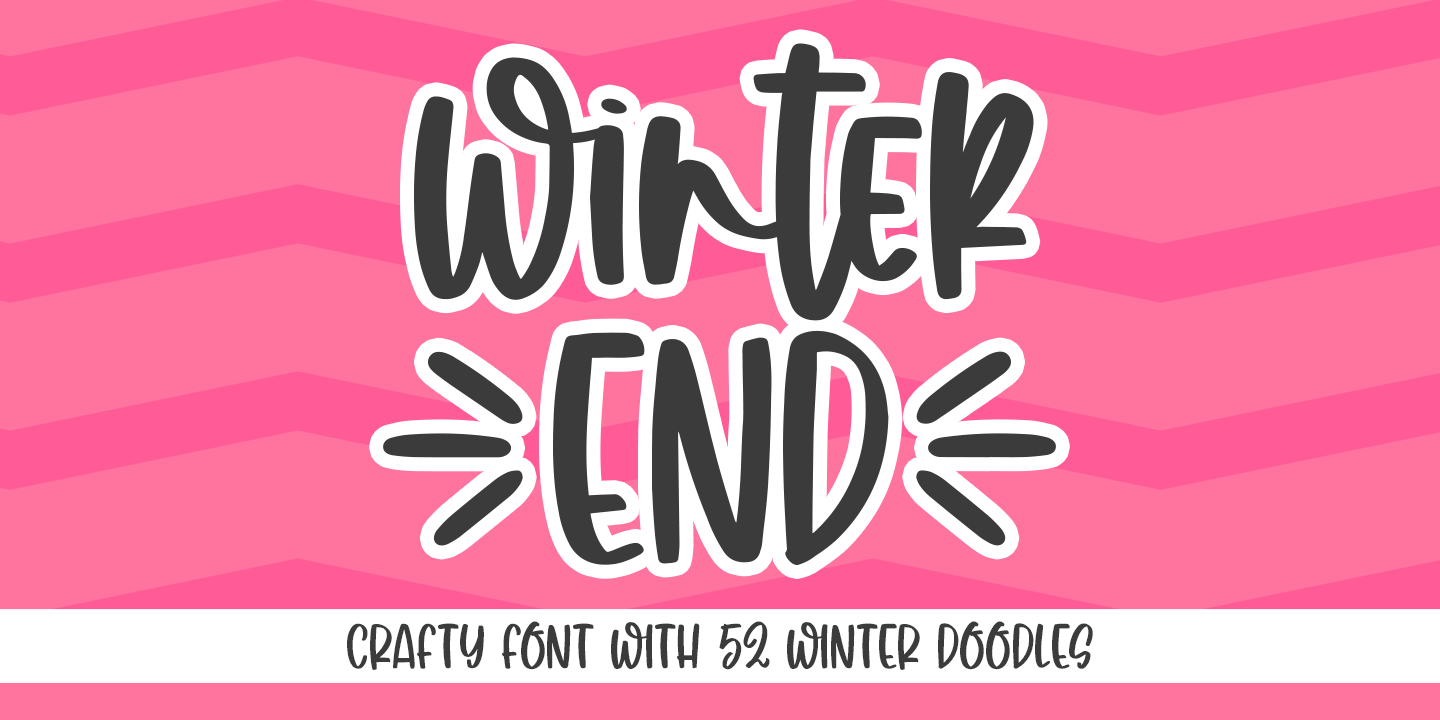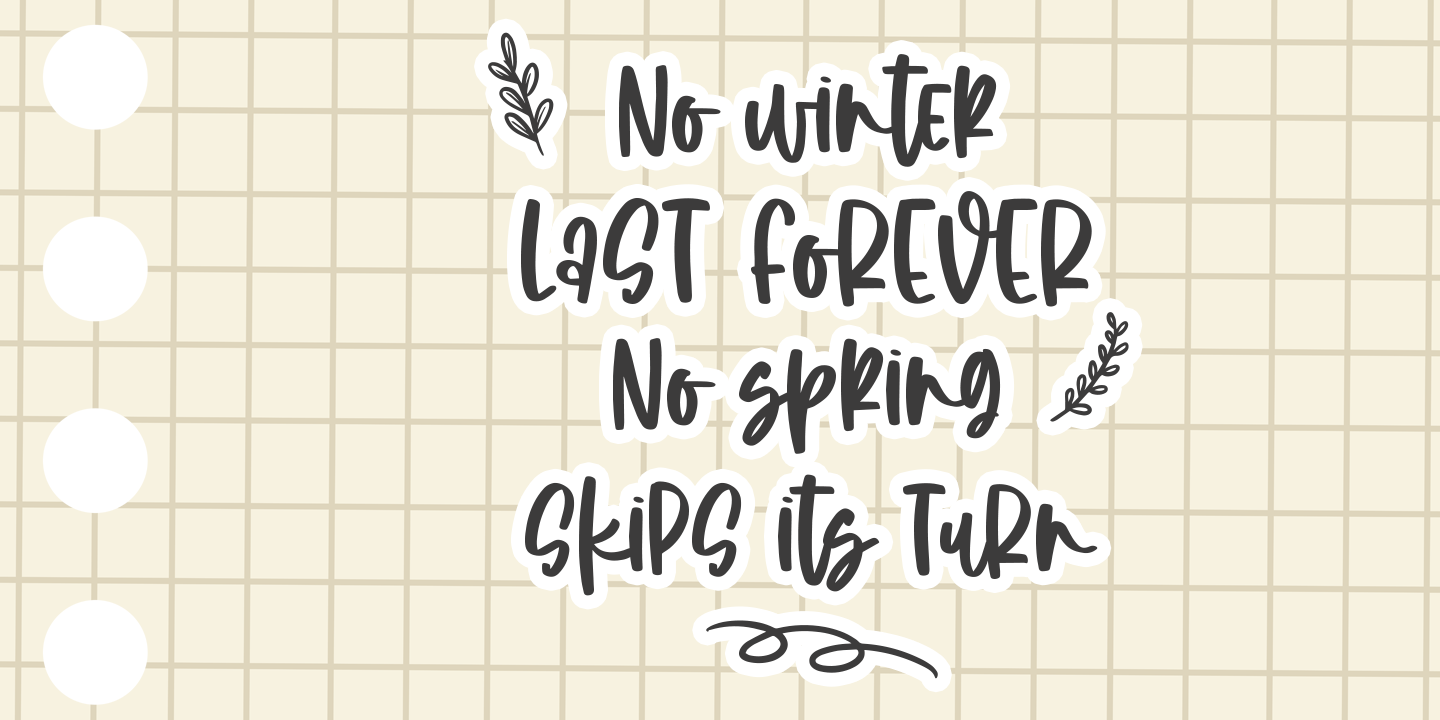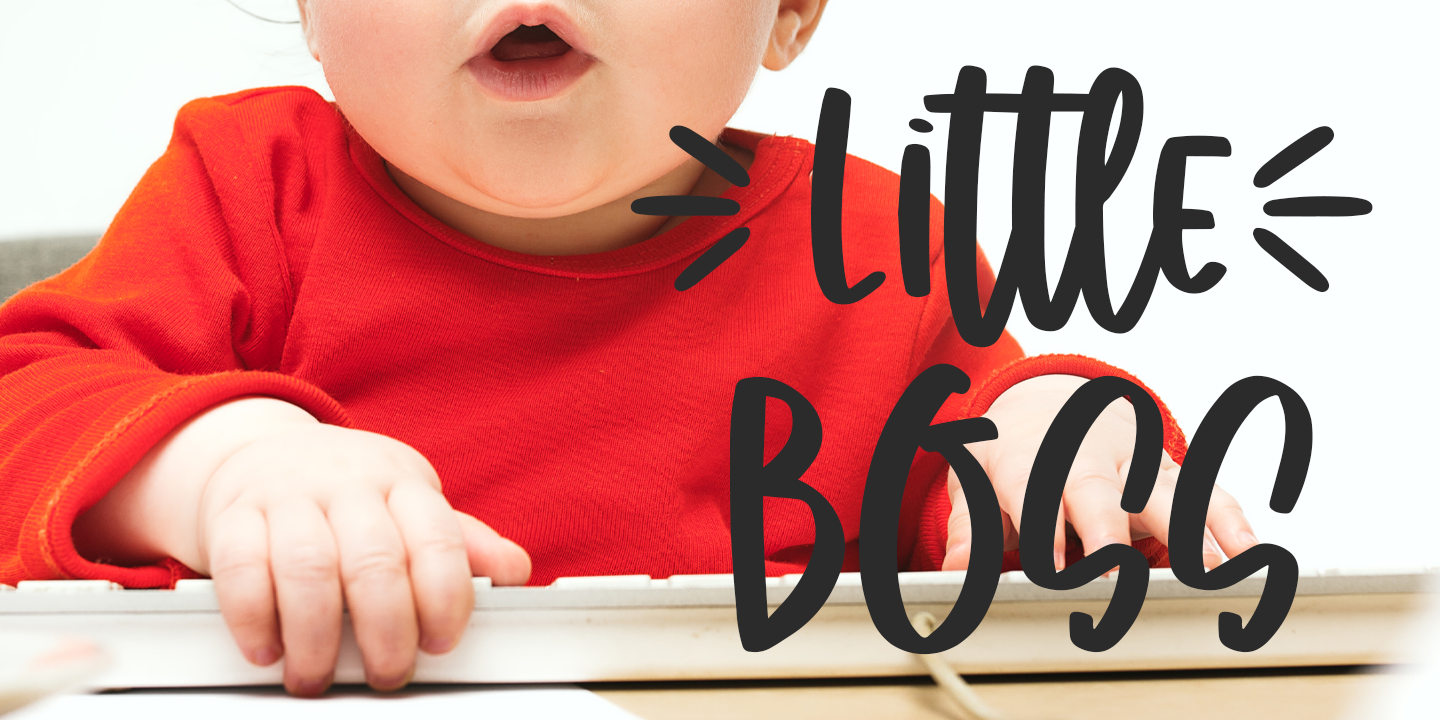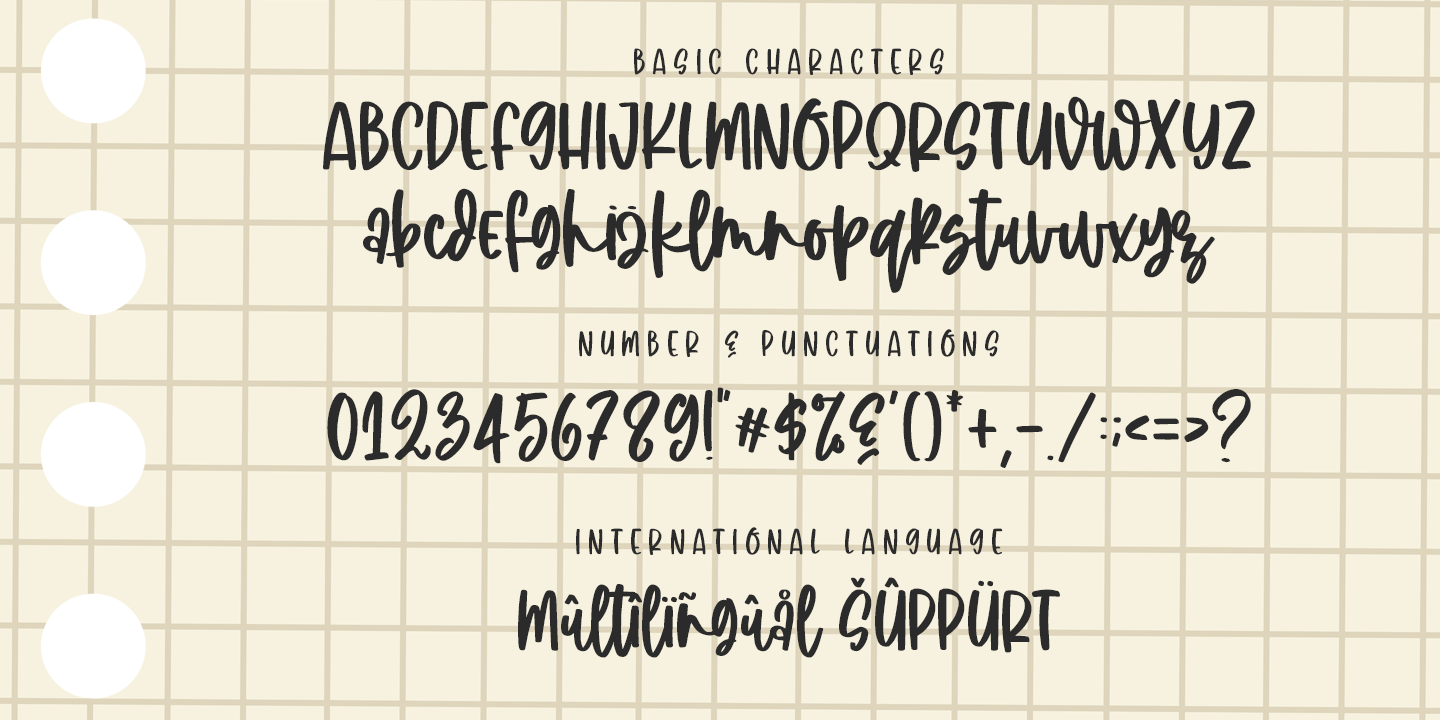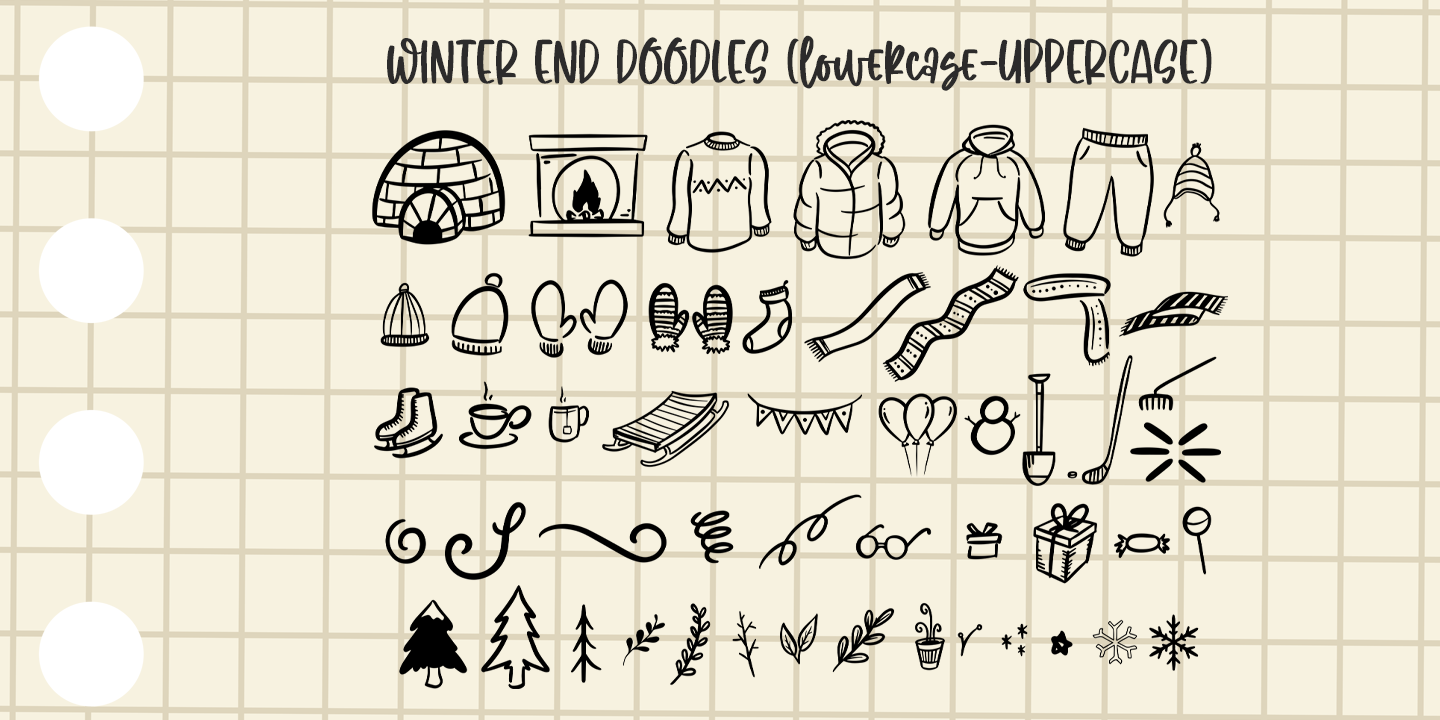
introducing
WINTER END
- quirky craft font -
It is great for quotes, lettering, t-shirt design, mug, card, cutting, embroidery, banner, and anything for your craft project.
Uppercase and lowercase characters match each other.
The Winter Doodles make this font complete.
Features
- Uppercase
- Lowercase
- Numeral & Punctuation
- Multilingual
- Ligatures
- Doodles
- PUA encoded